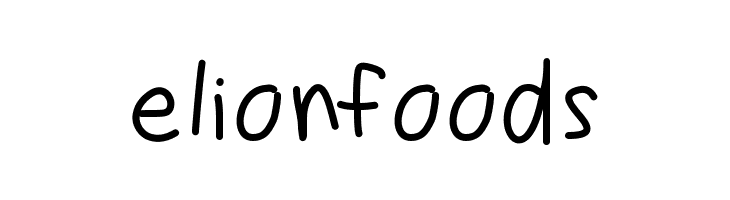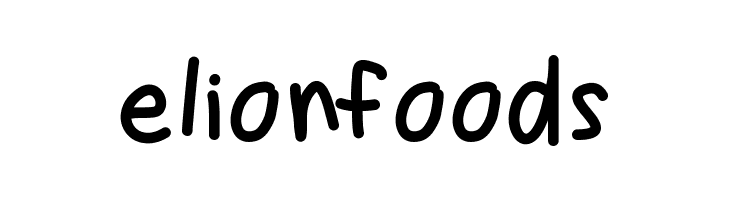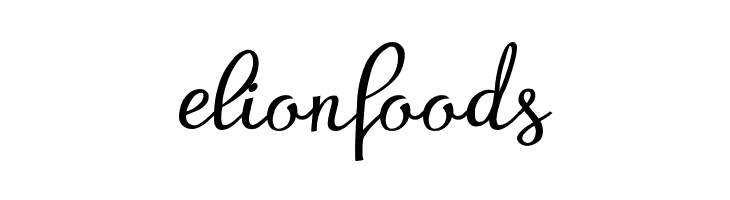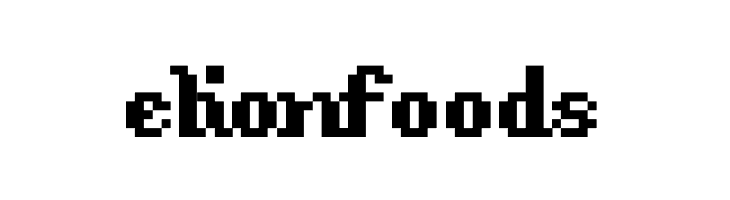
A modern, condensed sans-serif font with clean lines and uniform strokes.
A bold, pixelated serif font with a nostalgic digital aesthetic.
An elegant and flowing script font with bold, cursive letterforms.
An elegant script font with fluid, cursive strokes and a sophisticated appearance.
An elegant, flowing script font with a natural, handwritten appearance.
An elegant serif typeface with a refined italic style and pronounced serifs.
A refined serif font with tall, narrow letterforms and high contrast strokes.
A bold, expressive script font with a dynamic, hand-painted style.
A bold, cursive script font with dynamic, interconnected strokes.
A decorative font with elegant swashes and flourishes, perfect for artistic projects.
A modern, elegant script font with flowing curves and sophisticated style.
A flowing, cursive script font with an elegant, handwritten style.
A bold, heavy font with a modern and impactful design.
Elegant and modern handwritten script font.
A bold, brushstroke font with a textured, hand-painted appearance.
A bold, playful display font with a hand-drawn, energetic style.
A bold, monospaced font with uniform character width, ideal for technical use.
A clean, minimalistic monospaced font with an extralight weight and geometric influence.
A clean, monospaced font with a minimalist and modern design.
A modern, monospaced font with a clean and minimalist design.
A clean, modern monospaced font with uniform character width and high legibility.
A clean, monospaced font with a semi-bold weight, ideal for technical and digital applications.
A thin, monospaced font with a minimalist and modern design.
A bold, distressed font with a grunge aesthetic and irregular, dynamic shapes.
A modern, geometric font with continuous, flowing lines and a cohesive appearance.